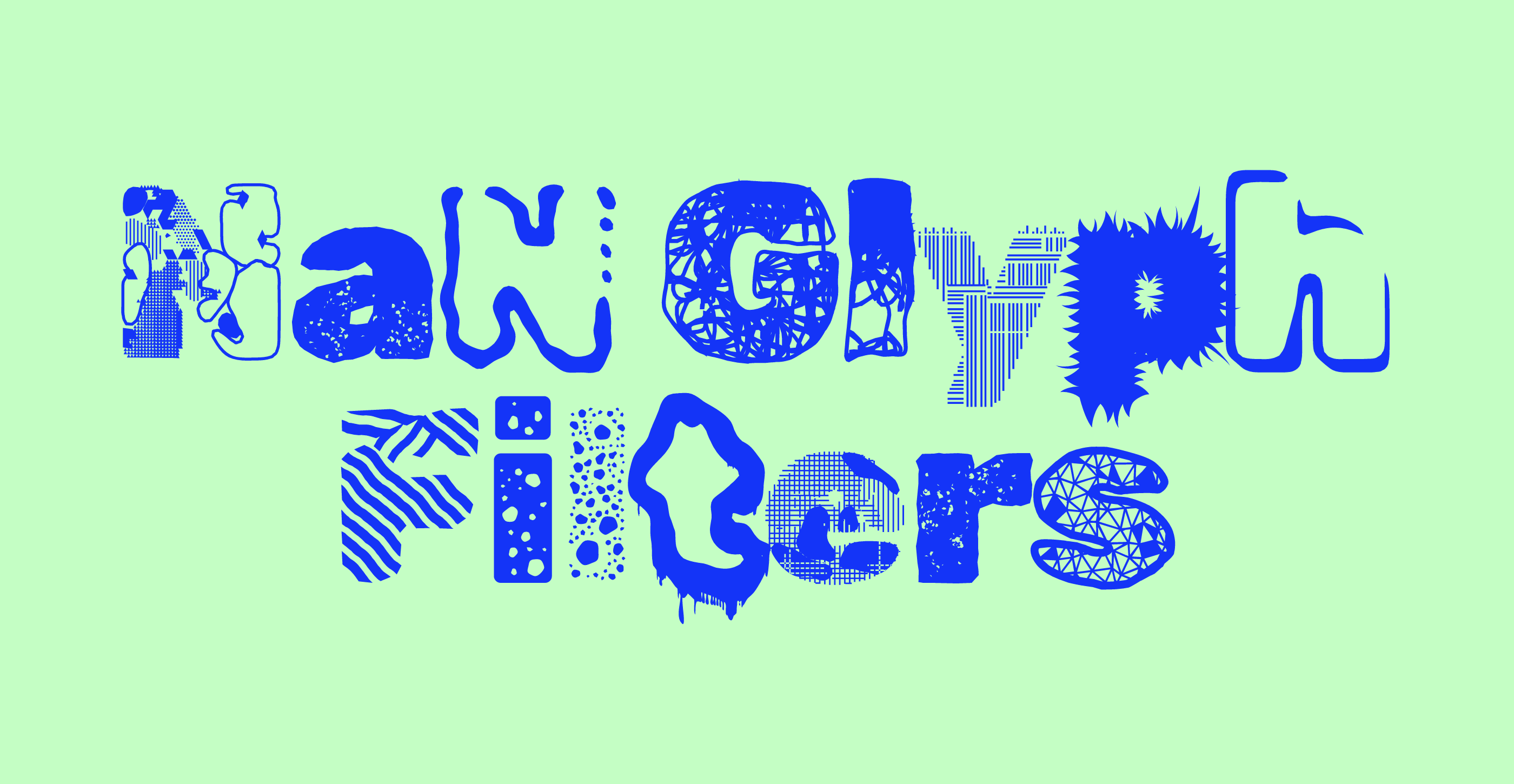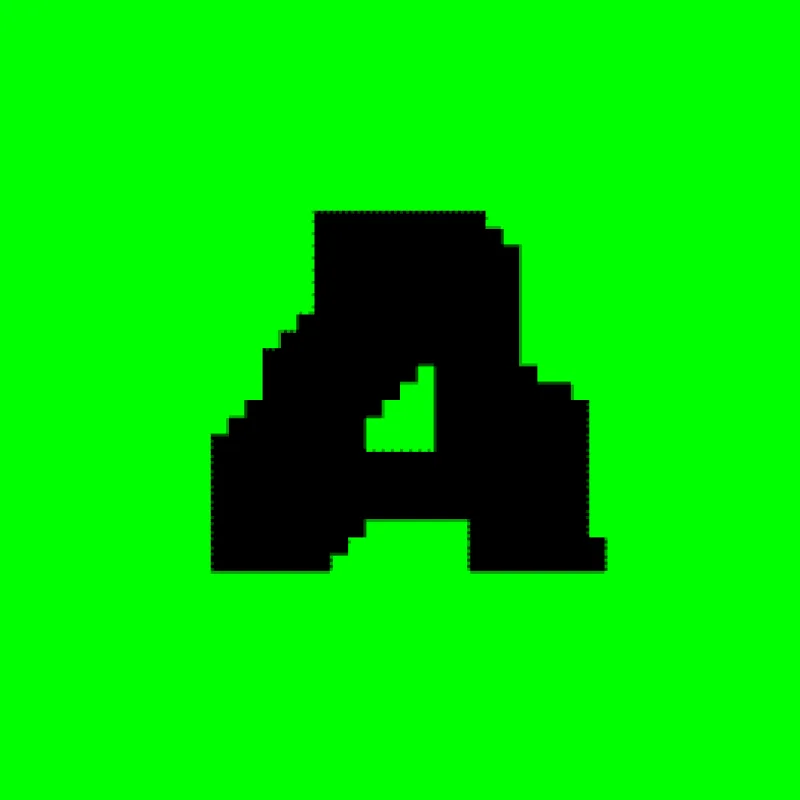
Generative Fonts is a collection of algorithmically generated typefaces created through code-based design systems. Each font is designed with procedural rules, often producing unpredictable and expressive letterforms. The project explores the intersection of typography, randomness, and computational design for experimental visual work.